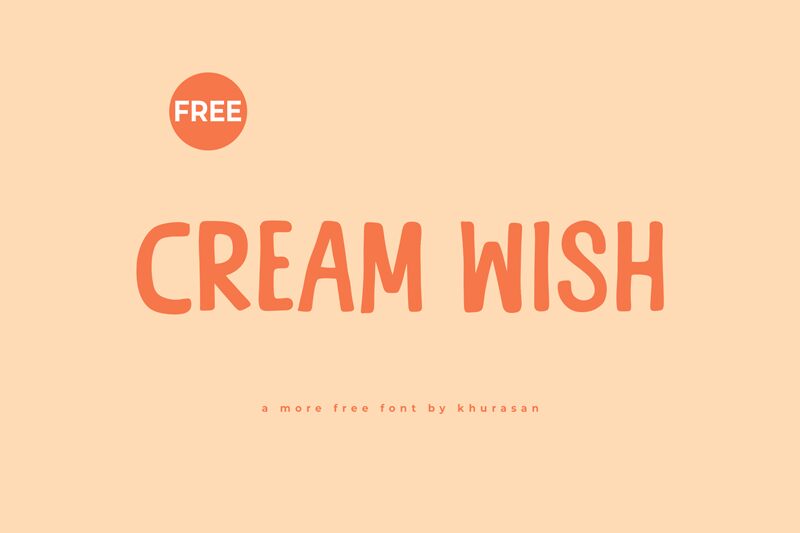
Cream Wish
Cream Wish font is a comic style font designed by Khurasan. Fall in love with its whimsical quality and use storytelling to charm your audience in seconds! It’s a charming typeface that tends toward condensed uppercase letters, with sans-serif characteristics that reveal its display style. Free fonts aren’t particularly known for their rounded edges or playful personalities, which is what makes Cream Wish stand out.
As expected, the font’s design perfectly complements cartoon movies along with kids’ book titles and covers. You can also experiment with it when designing kid-friendly products such as snack packaging or even children clothes’ price tags! Websites infographics, business cards and branding projects can all benefit from this product too.